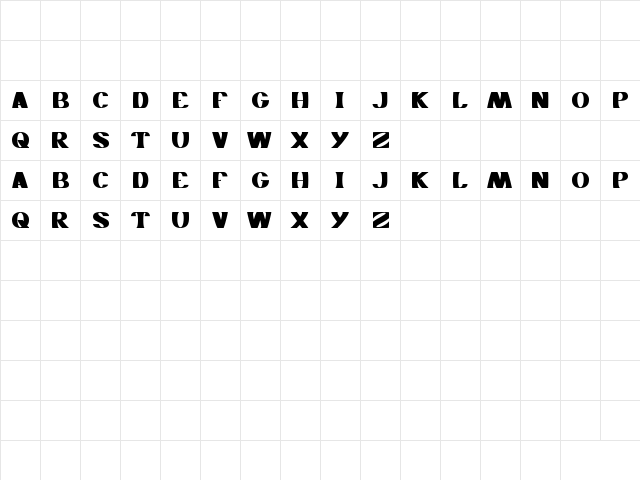
MONOCHROME Regular
Design Context for MONOCHROME Typeface
MONOCHROME brings the precise, column-aligned rhythm of monospaced typography to designs that value technical clarity and systematic order.
Pro Tip: Pair MONOCHROME with a proportional sans for UI contexts where code-style labels and regular body copy need to coexist.